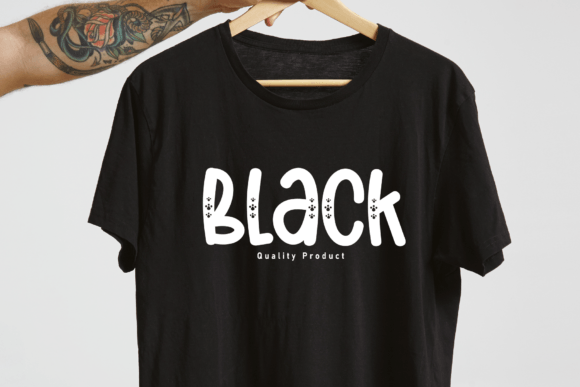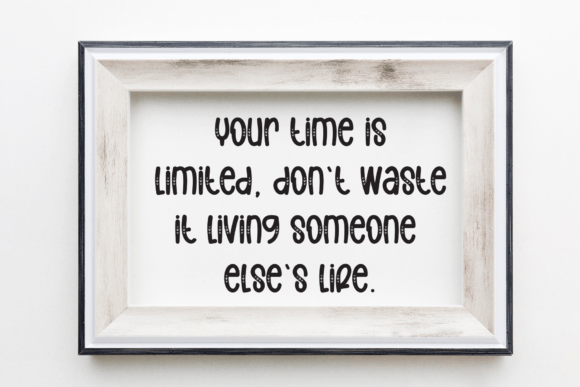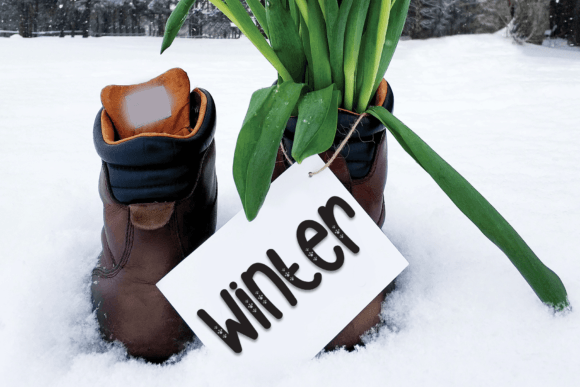
Introduction to Baby Doggie Font
Baby Doggie is a casual handwritten font that captures a relaxed and friendly vibe with its natural, flowing strokes.
πŸ‘€ Author Roronoa zoro.S.P.D
Ideal for personal projects, social media, and invitations, it brings an effortless, charming touch to any design The font’s easygoing style adds warmth and authenticity.
Key Features of Baby Doggie Font
Why Choose Baby Doggie Font?
Baby Doggie Font offers exceptional quality and versatility, making it a valuable addition to your design toolkit. Whether you’re creating for personal projects or commercial use, Baby Doggie Font delivers professional results.